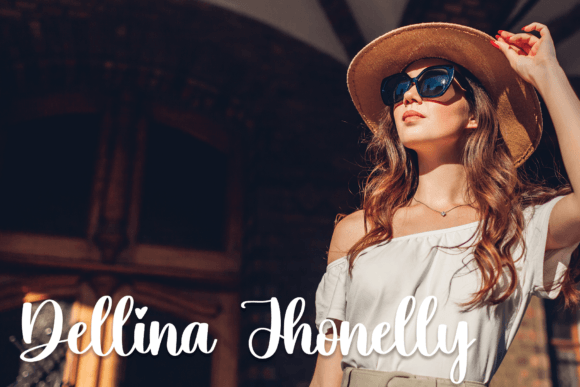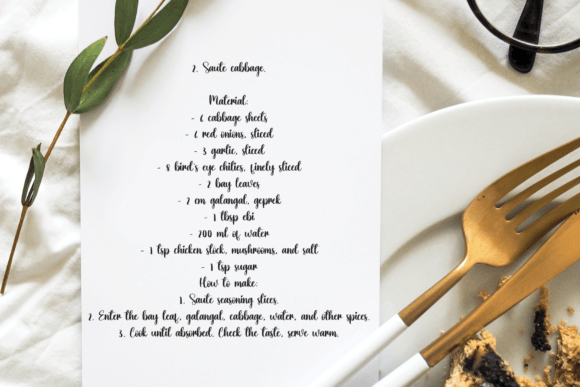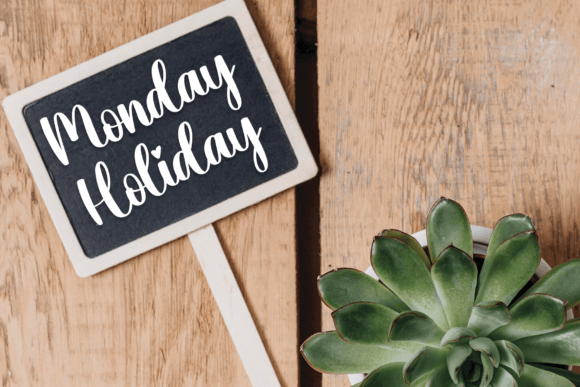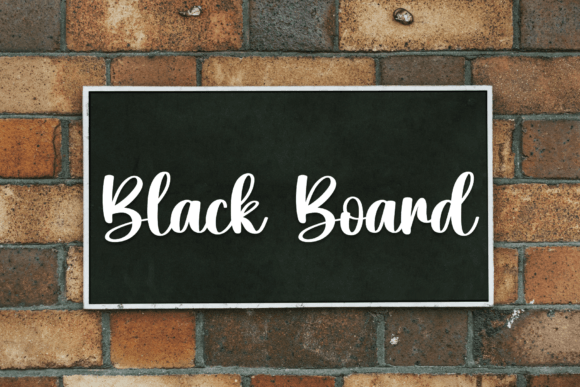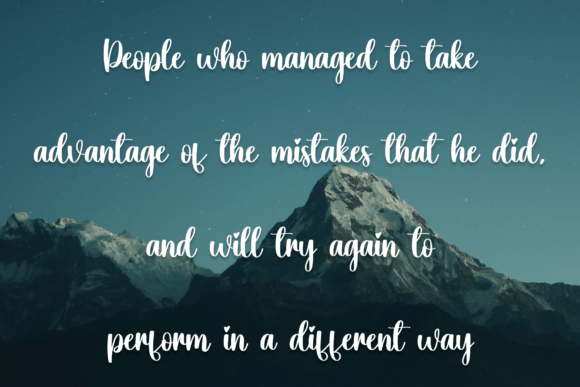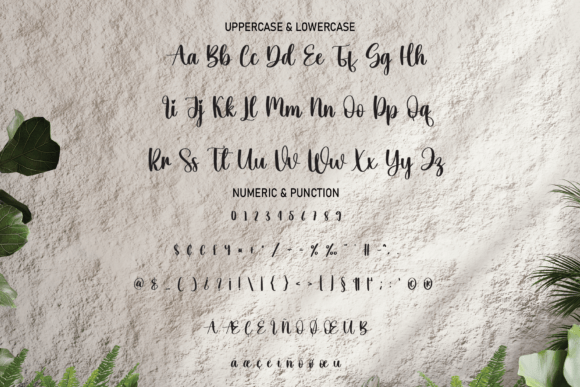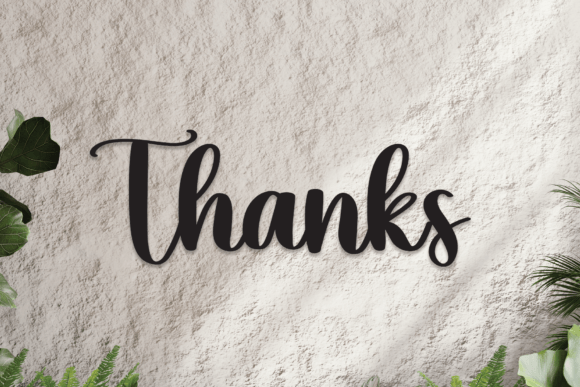
Onegreen Font
About Onegreen Font
Onegreen is an exquisite handwritten font, masterfully designed to become a true favorite. It maintains its classy calligraphic influences while feeling contemporary and fresh. Fall in love with it and bring your projects to the highest levels!